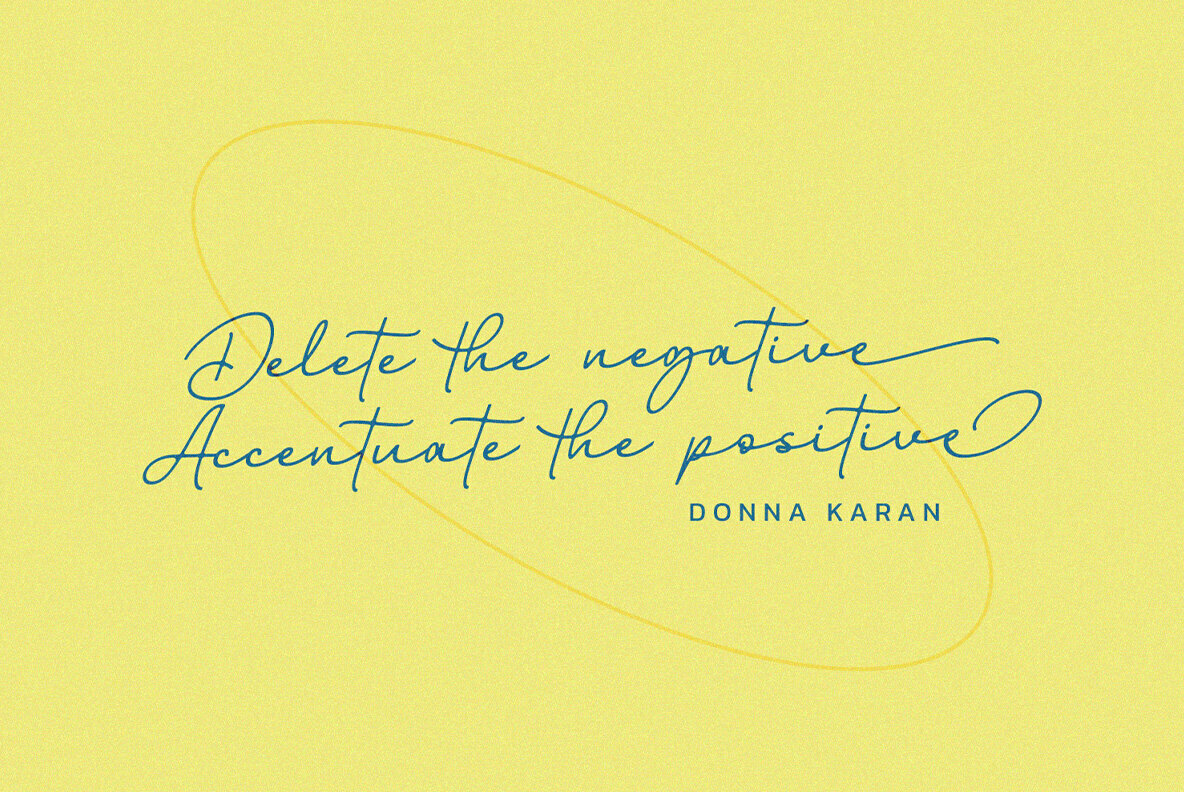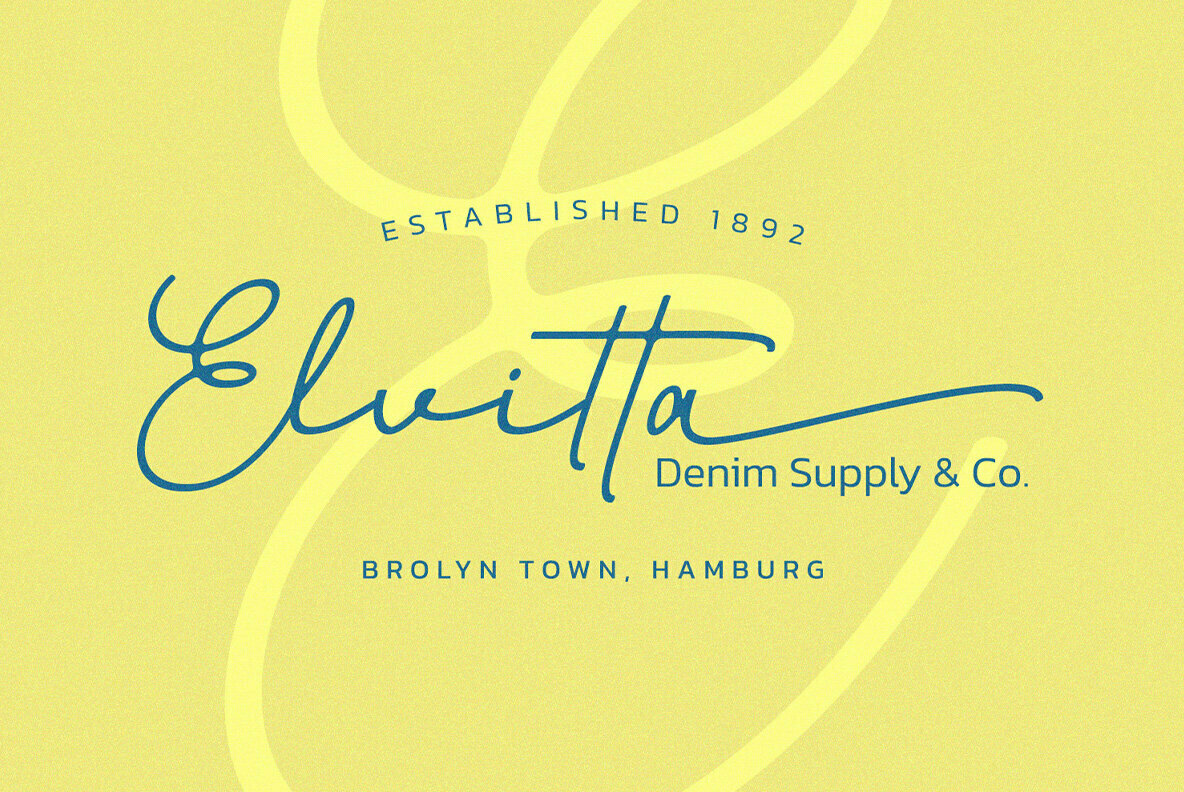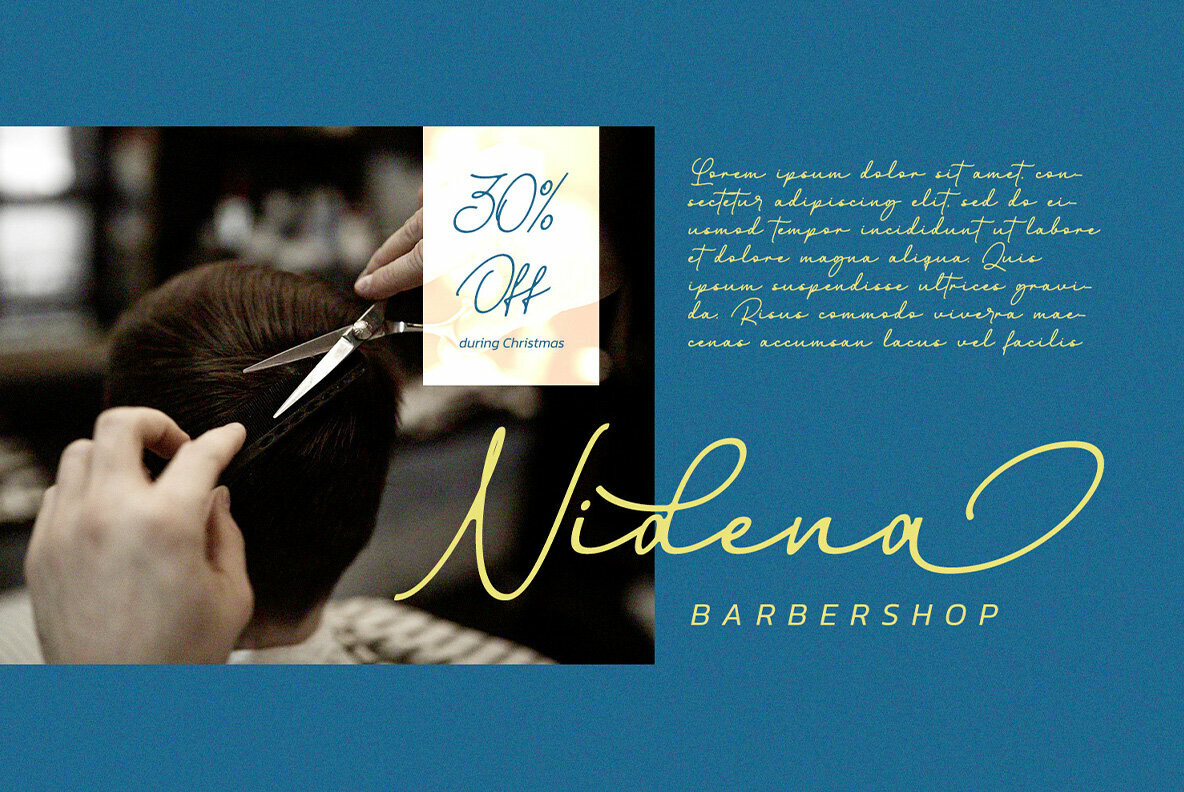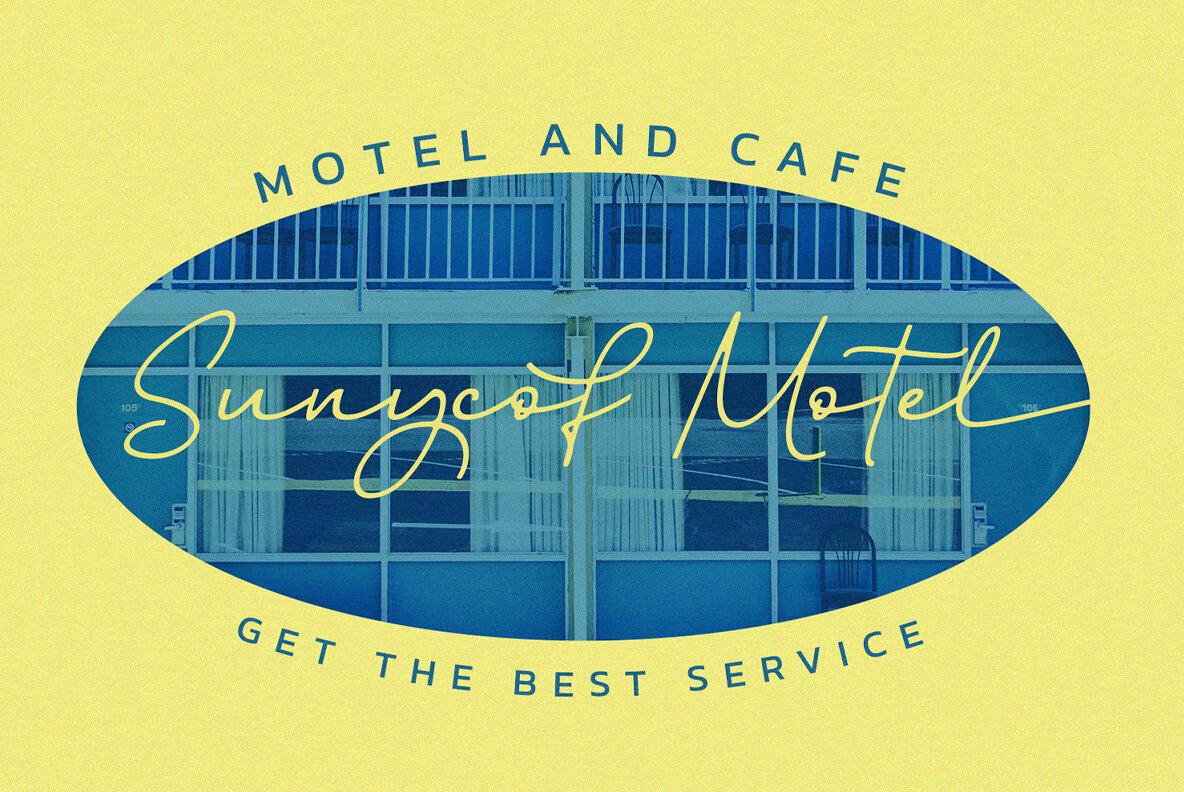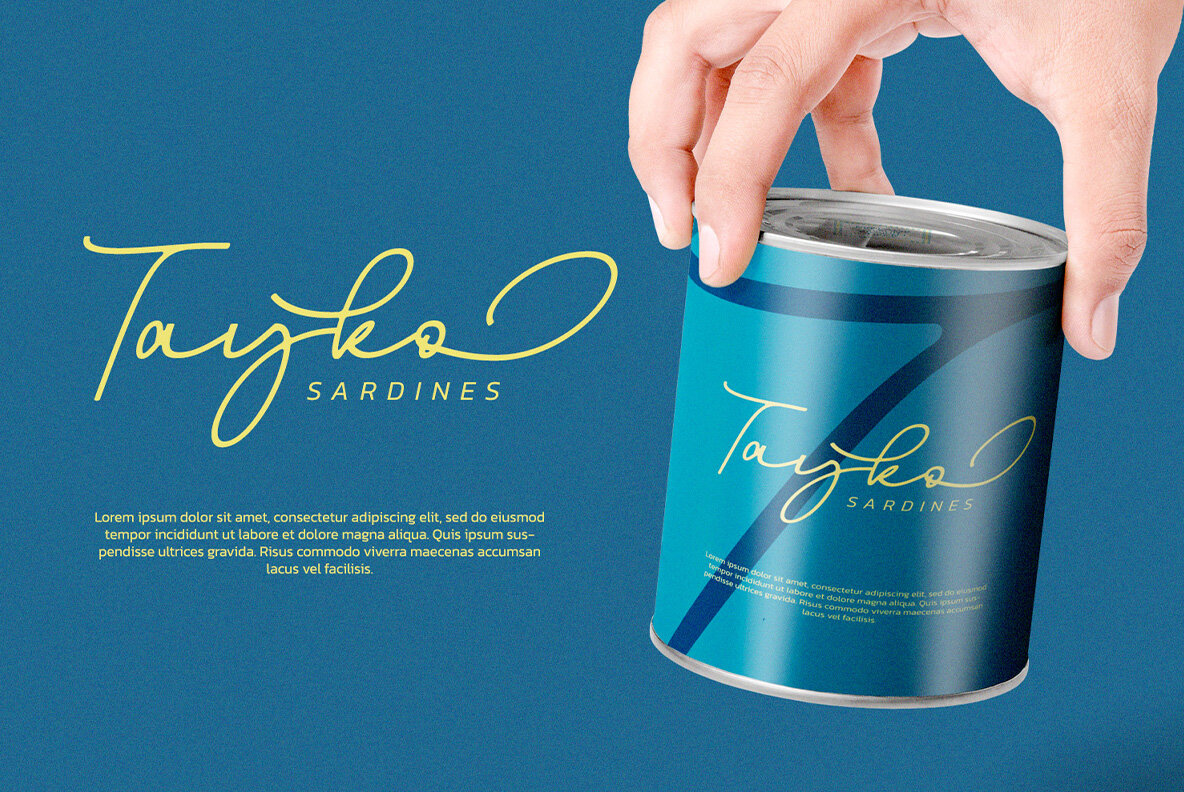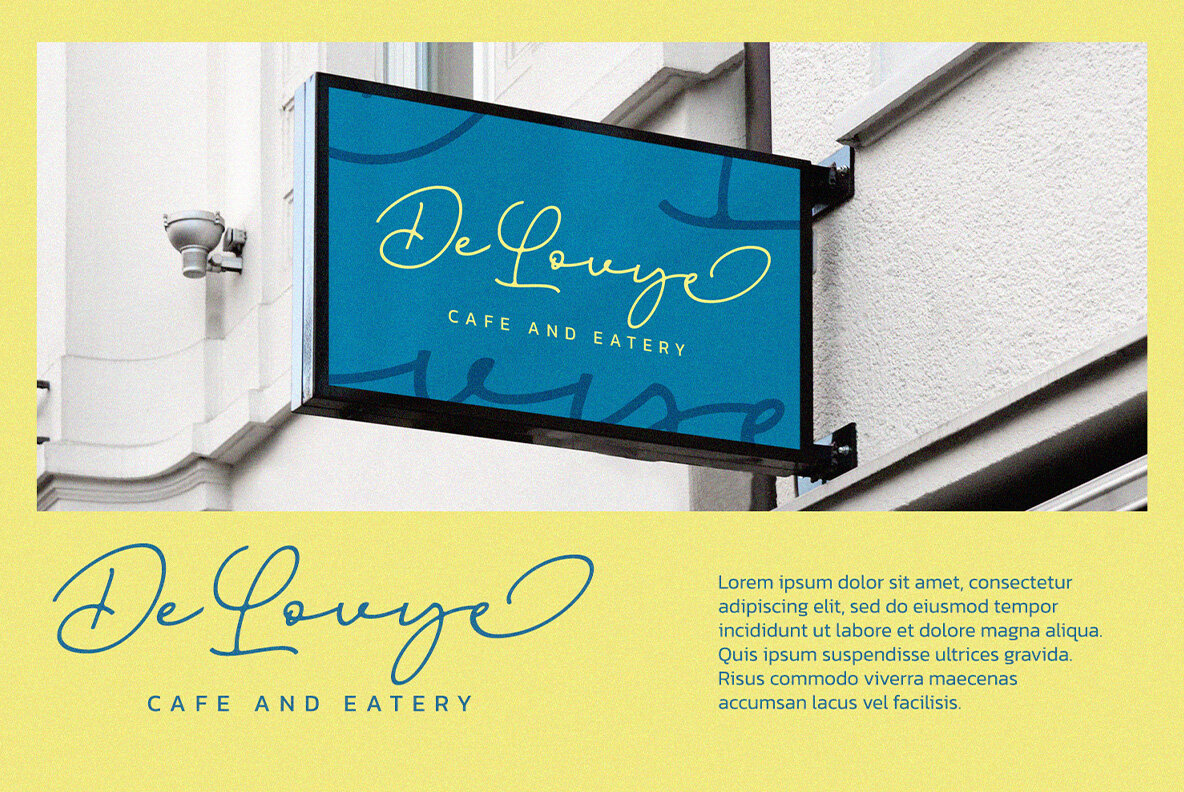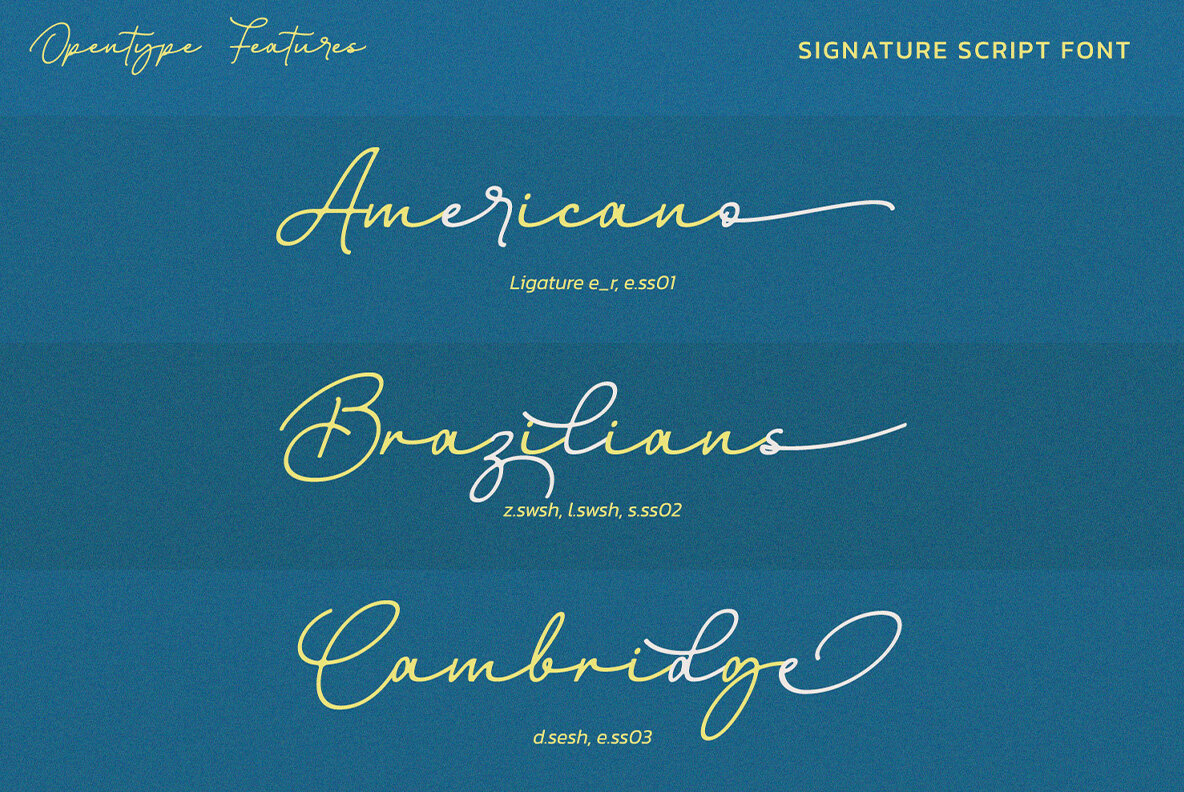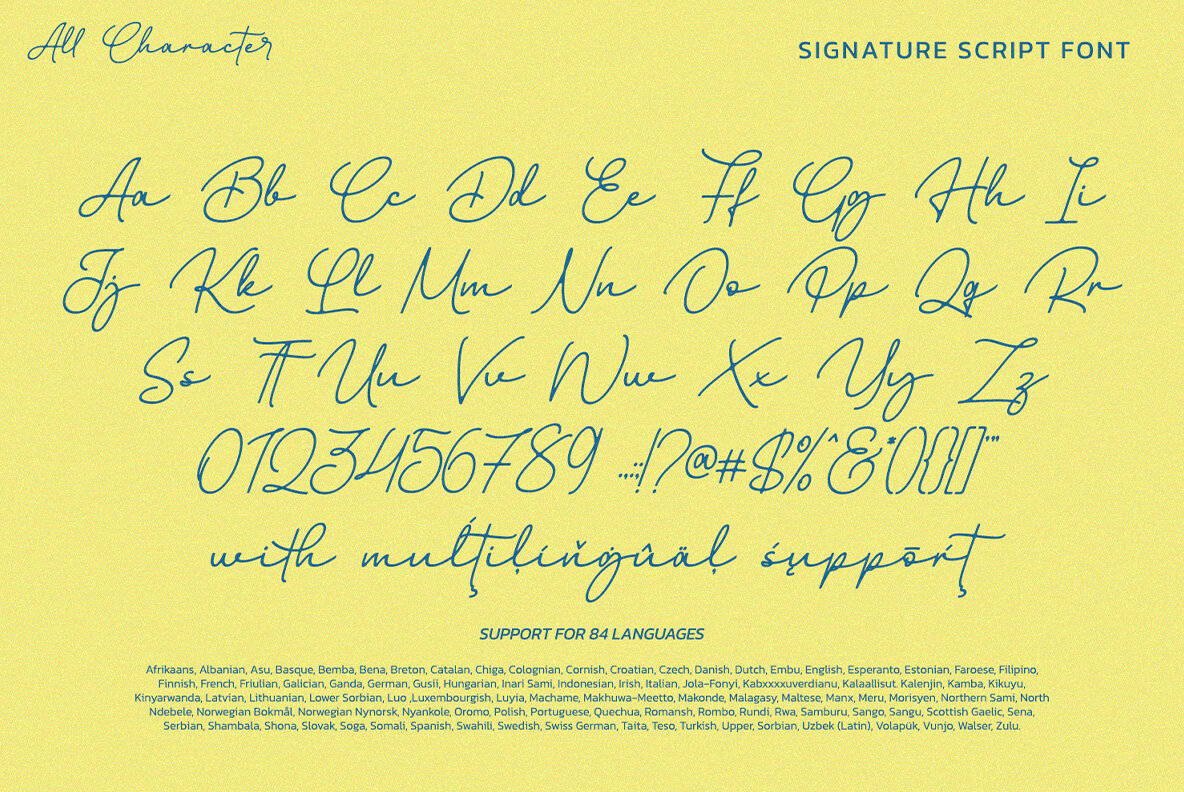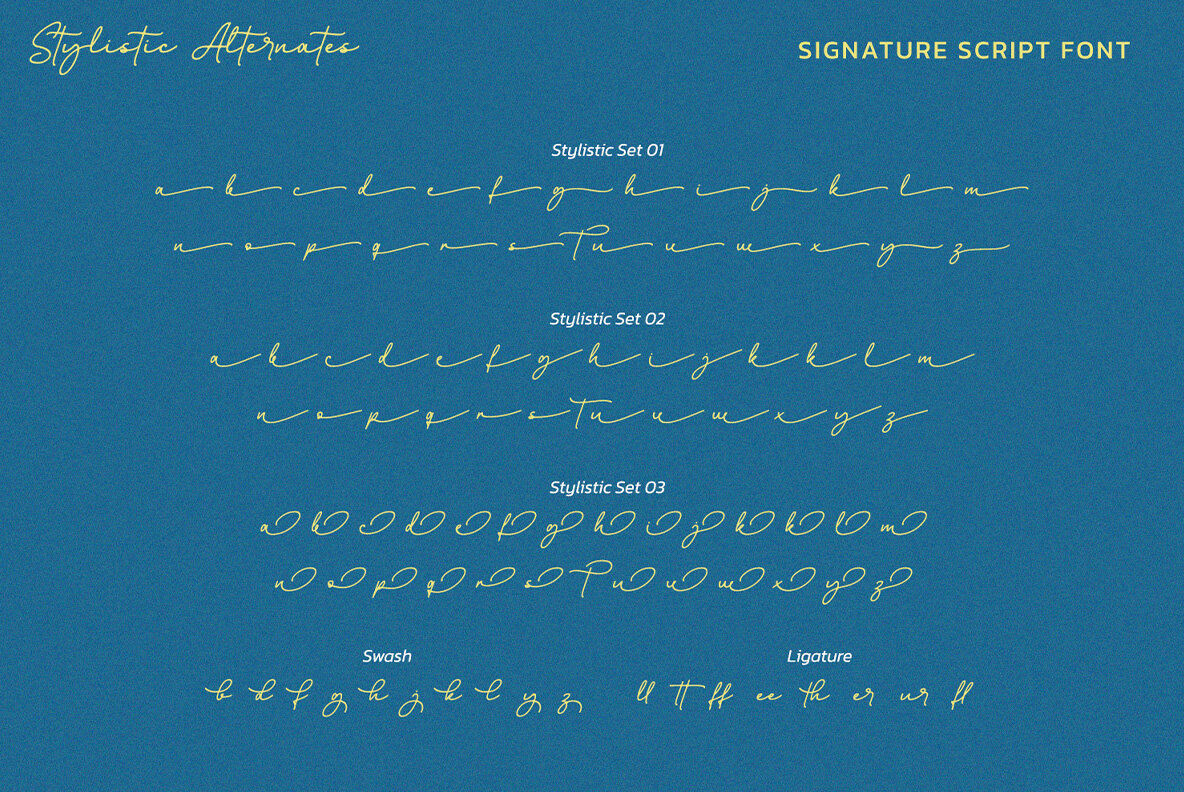
Billstone Signature Font
Billstone Signature
The Billstone Signature font exudes elegance through its graceful strokes and seamless flow. This sophisticated script font is designed to infuse luxury and modernity into your creative projects, making it an excellent choice for designers aiming to elevate their visual communications. From captivating titles to elegant invitations, Billstone Signature adds a touch of class and sophistication that enhances the aesthetics of any design endeavor. Billstone Signature is meticulously designed with a variety of alternative styles that lend natural elegance and charm. This makes it perfect for extraordinary projects that demand an elevated aesthetic. Its versatility ensures it remains an asset for titles, invitations, poster designs, branding, quotes, logos, and more.Billstone Signature: Sophisticated Script for Modern Design